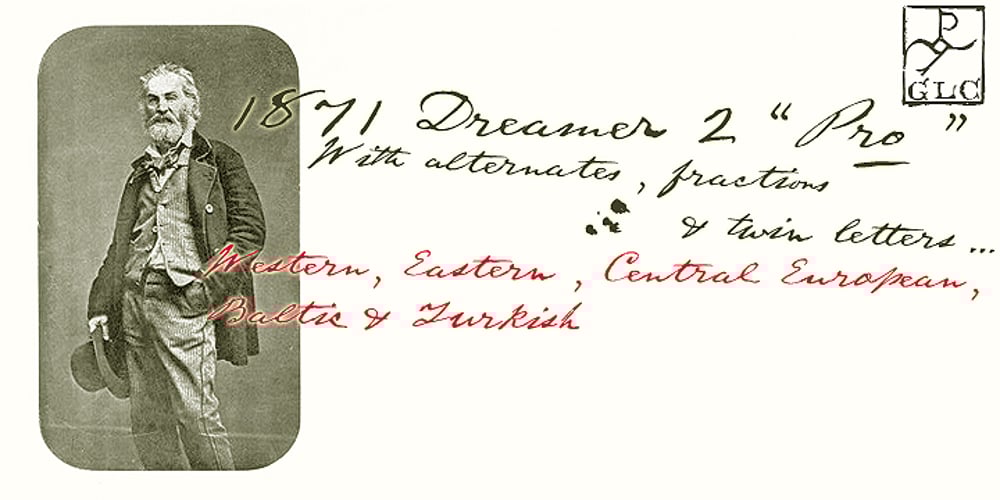
1871 Dreamer 2 Pro
1871 Dreamer 2 Pro font
1871 Dreamer 2 Pro Font Family was designed by Gilles Le Corre and published by GLC. 1871 Dreamer 2 Pro contains 1 styles and family package options. Like our first “1871 Dreamer Script” this script font was inspired from a lot of manuscripts, notes and drafts, written by the famous american poet Walt Whitman. However, it is a very different font, with a higher x-line, numerous different ligatures, alternates and twin letters, including fractions, and, as a real “Pro” font, usable not only for Western European, but also for Eastern and Central European, Baltic and Turkish.